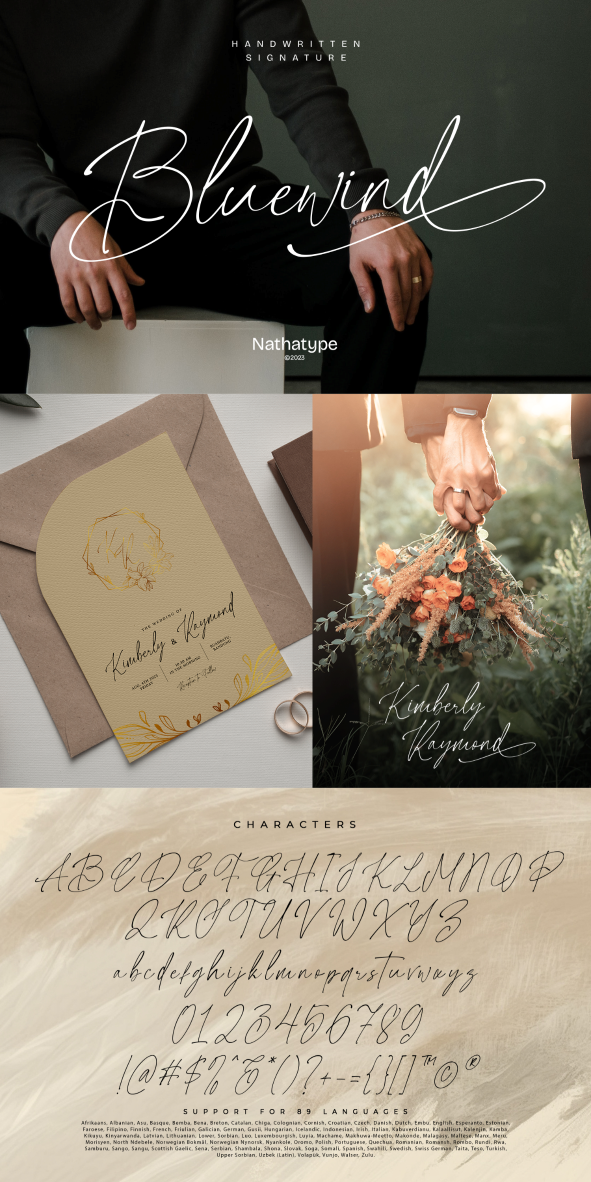
Bluewind Font
About Bluewind
Bluewind is an elegant script font that is designed to replicate the beauty of a handwritten signature. Every letter in this font is crafted with a subtle and low-contrast approach creating an effortless appearance reminiscent of an artist’s signature on paper. The carefully calibrated spacing and graceful curves ensure that it remains not only visually captivating but also easy to read. Furthermore, you can enjoy the available features here.
Stylistic Sets
Bluewind fits in headlines, logos, posters, flyers, invitations, name cards, branding materials, print media, editorial layouts, and many more. Find out more ways to use this font by taking a look at the font preview.